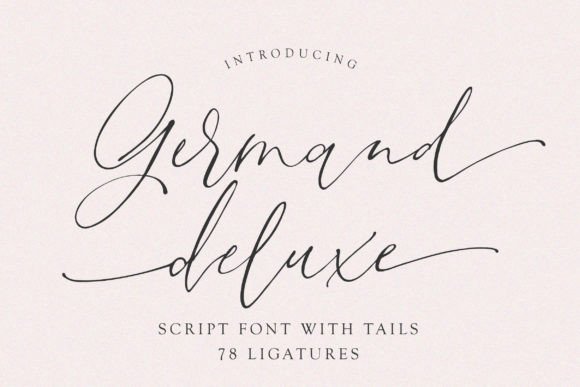
Introducing Germand Deluxe Font - the perfect addition to your font collection! Created by Bellinghamtype, this exquisite script font boasts luxurious, flowing letters with intricate details that exude elegance and sophistication.
Whether you're looking to enhance your branding, stationery or website design, Germand Deluxe Font will take your project to the next level. Its lavish and opulent design will make your content stand out and capture your audience's attention with ease.
Germand Deluxe Font is PUA encoded, meaning that you can easily access all of its glyphs and swashes. This feature will allow you to experiment with various design styles and create a unique and personalized look that will truly reflect your brand's identity.
Not only is Germand Deluxe Font visually stunning, but it is also one of the best fonts for logos on Canva. Its intricate and ornate style will add a touch of glamour and sophistication to your brand's logo, making it instantly recognizable and memorable.